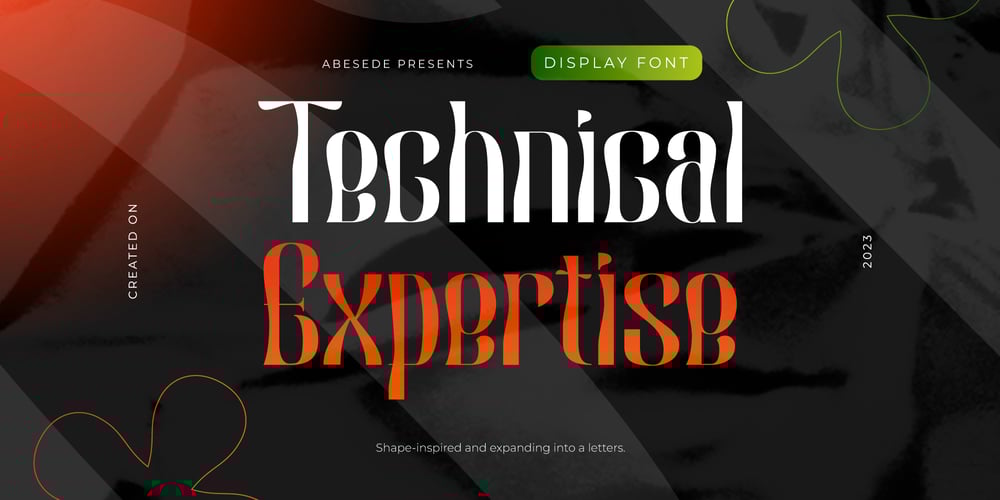
Technical Expertise Font Family was designed by Andreas Rossi and published by Abesede Studio. Technical Expertise contains 1 styles and family package options. Technical Expertise is a unique and eye-catching display font that takes inspiration from various shapes and expands them into letters.